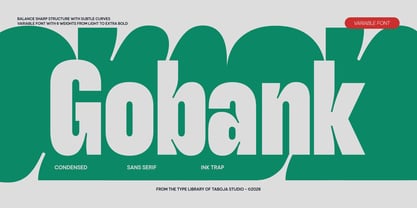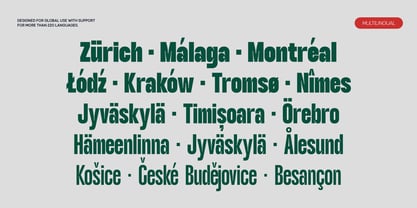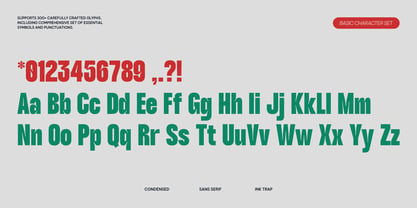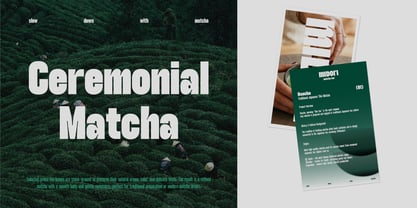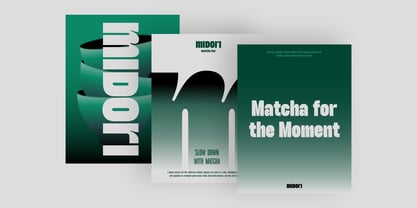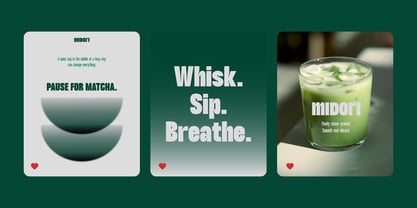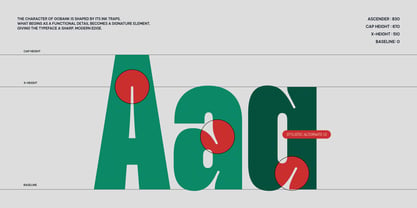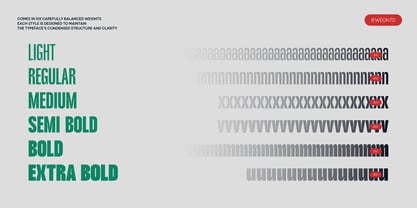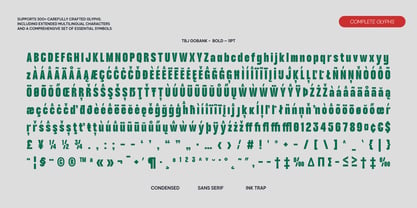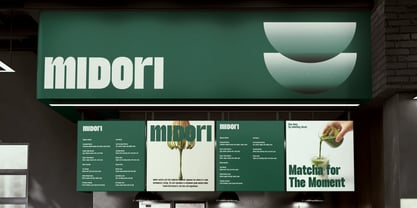
TBJ Gobank
by Taboja Studio
The TBJ Gobank Font Family was designed by Yusilo Oktaprima Ardani and published by Taboja Studio. TBJ Gobank contains 6 styles and family package options. More about this family
TBJ Gobank is a condensed sans serif typeface designed to bring strength, clarity, and modern character into contemporary visual communication. Its tall proportions and soft inktrap details create a distinctive rhythm while maintaining strong readability across both large headlines and structured layouts. Built as a professional font family with Latin Pro language support, TBJ Gobank balances compact structure with subtle rounded inktrap cuts that improve optical balance and give the typeface a refined personality. Designed for branding, headlines, posters, editorial layouts, sports visuals, and digital campaigns, TBJ Gobank delivers a confident condensed voice while remaining clean and versatile for modern design systems. To fully enjoy everything this font has to offer, programs like Adobe Illustrator, Photoshop, or Indesign will help you get the most out of all the glyphs and features. And if you spot anything unusual or just want to share some feedback, don’t hesitate to let us know! We're always looking to improve and fine tune.
Designers: Yusilo Oktaprima Ardani
Foundry: Taboja Studio
TBJ Gobank